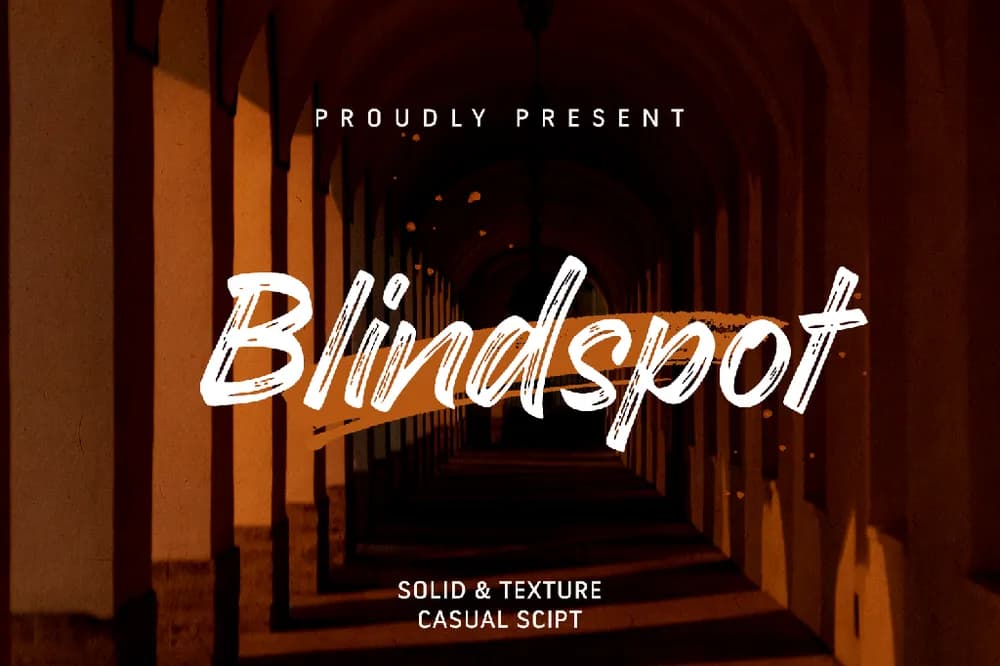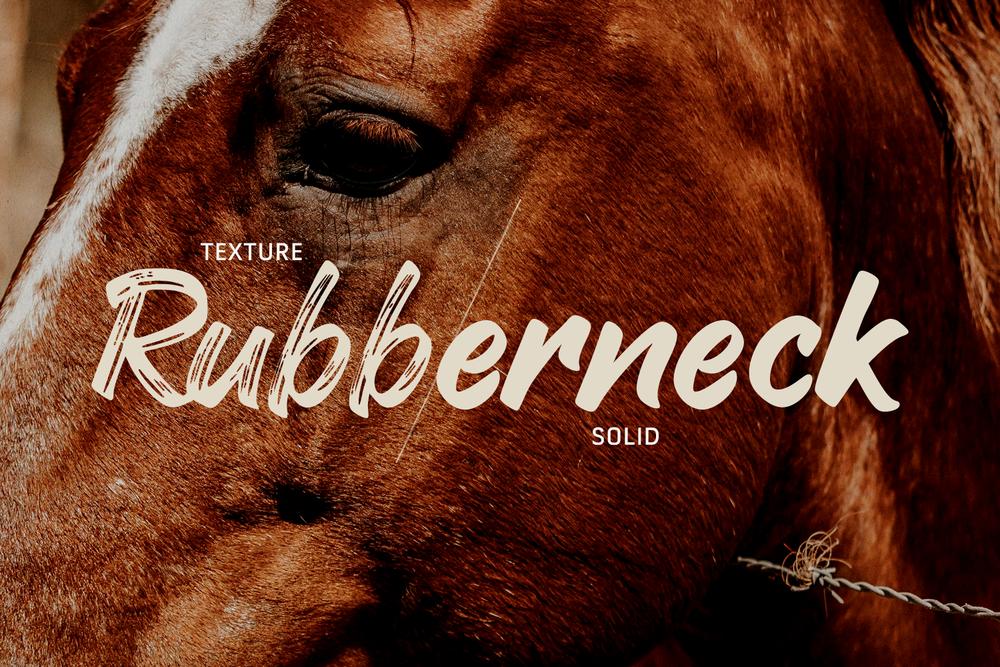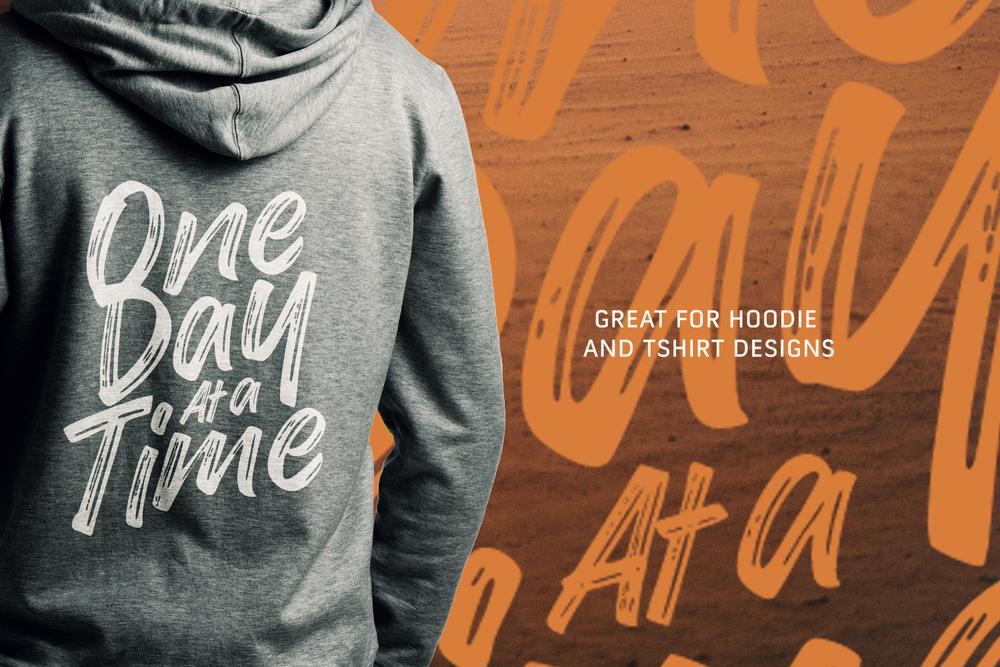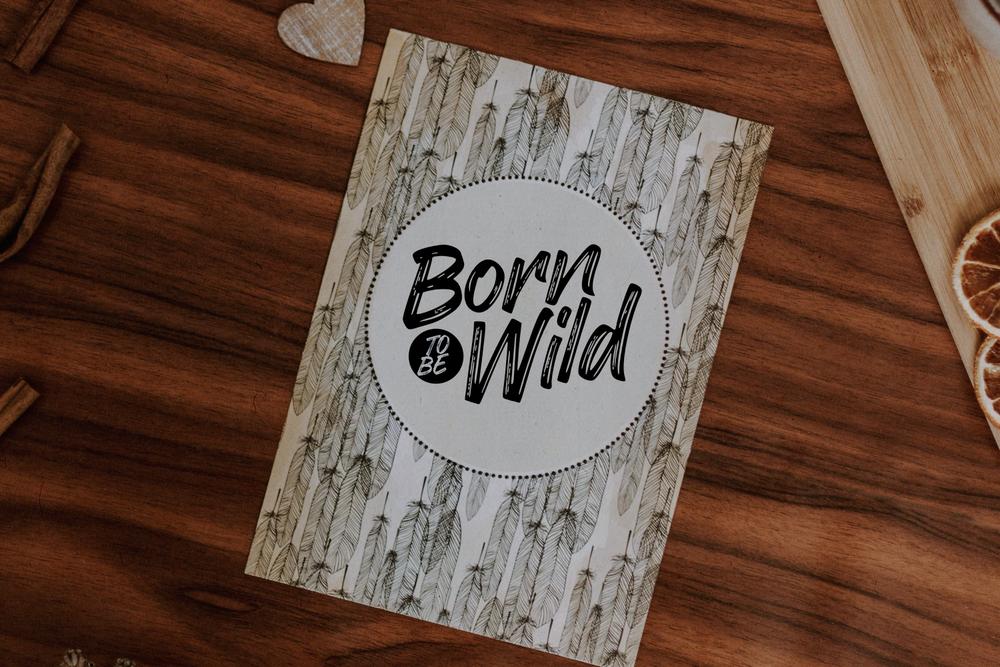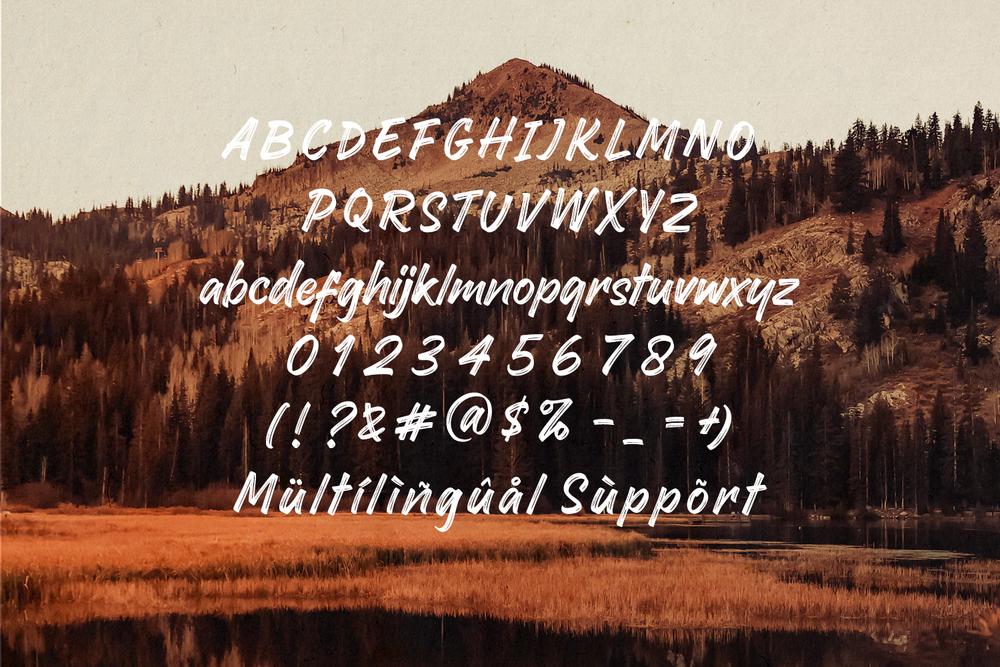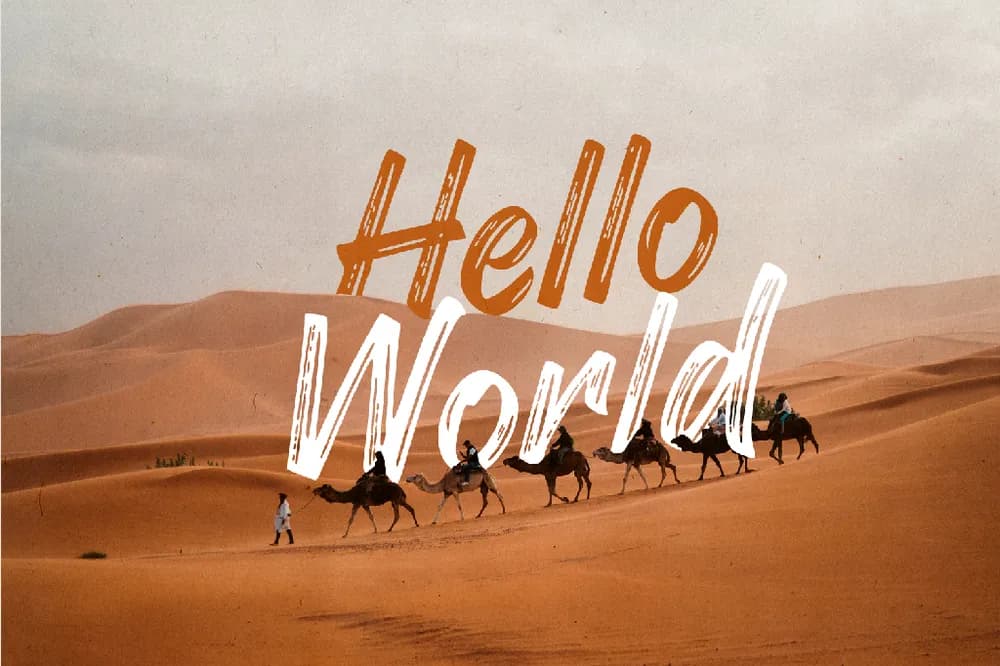
Blindspot is a casual brush script, that embodies the spirit of hand-lettering. Its rough edges and natural imperfections, perfect for creating a handmade aesthetic. This font is ideal for a range of design projects, including posters, packaging, and social media graphics. With its distinctive and playful style. FEATURES : Uppercase Lowercase Number Punctuation Multilingual PUA Encode FILES INCLUDED : Blindspot OTF Blindspot TTF Blindspot Solid OTF Blindspot Solid TTF